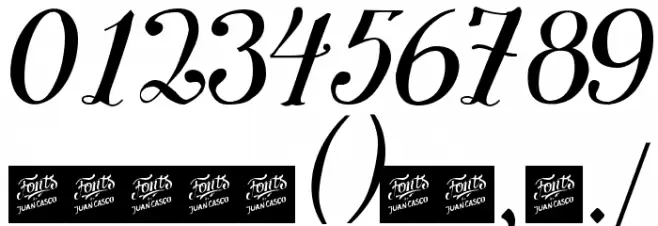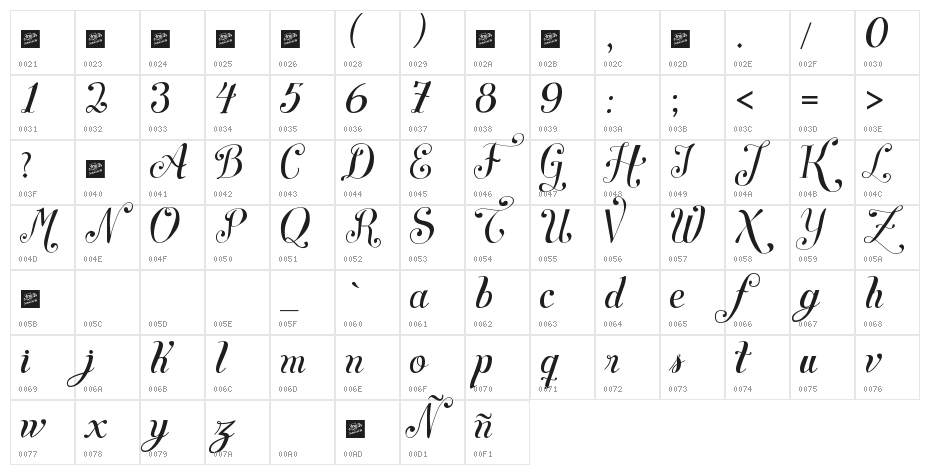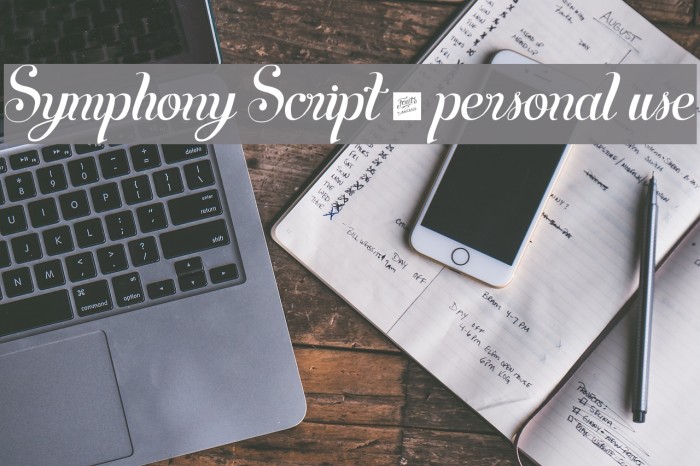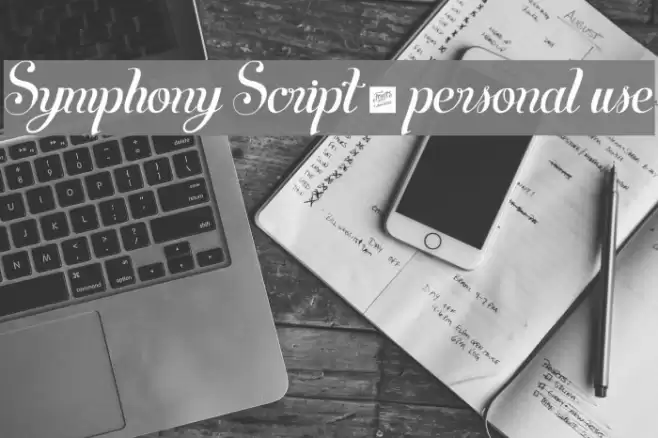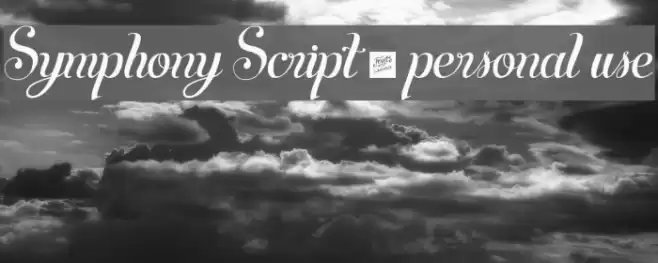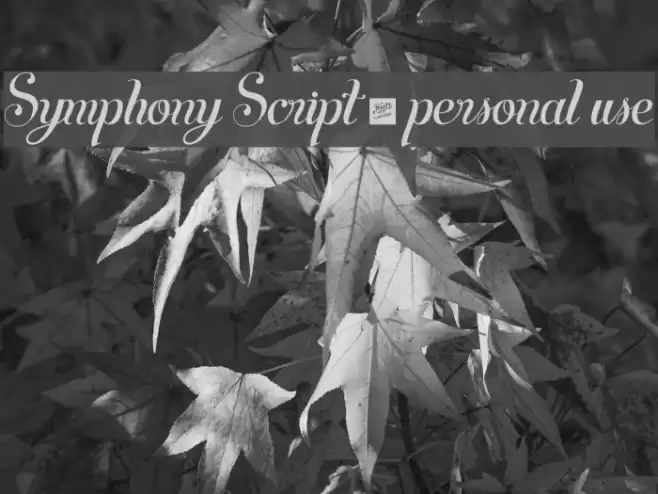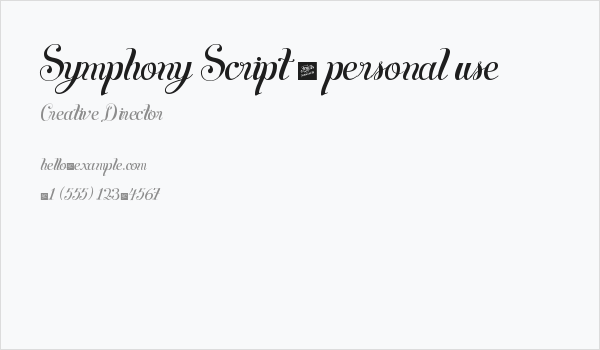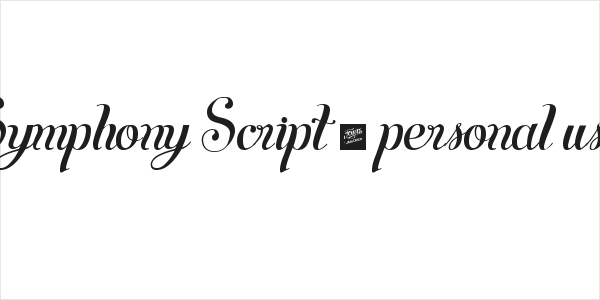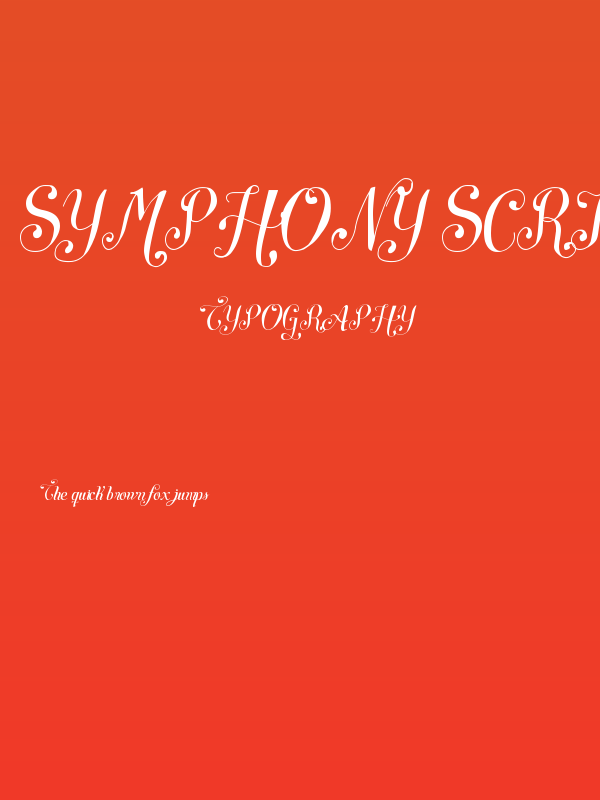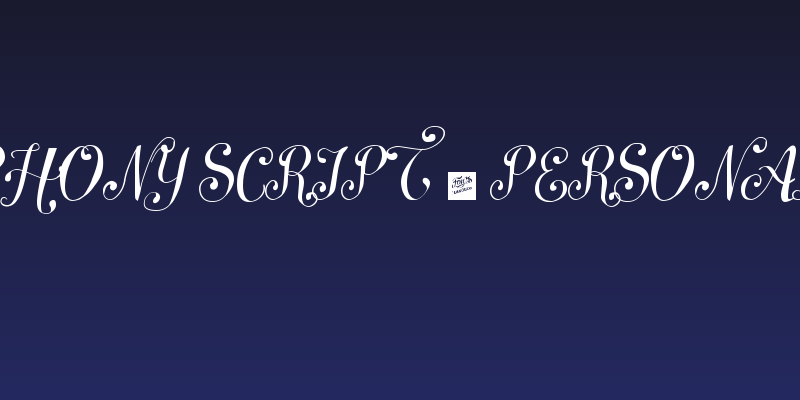
Symphony Script - personal use Font
Symphony Script - personal use Description
This elegant script font features a flowing, cursive style with intricate swirls and loops that give it a sophisticated and decorative appearance. The uppercase letters are adorned with elaborate flourishes, while the lowercase letters maintain a graceful continuity, making it ideal for formal invitations and artistic projects. The numerals are equally stylized, maintaining the overall aesthetic of the font. The special characters are designed to complement the script, adding versatility to its use. This font is perfect for projects that require a touch of elegance and sophistication.
| Proposed Projects | Ideal for wedding invitations, greeting cards, branding, and artistic designs. |